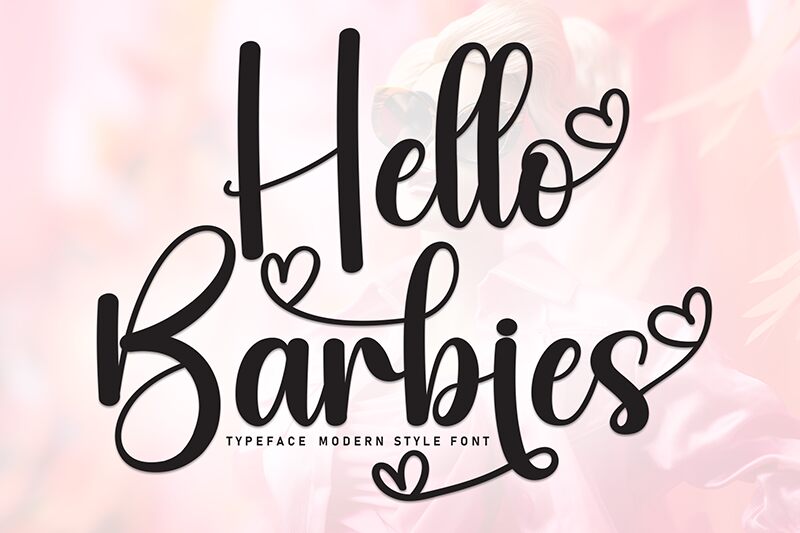
Hello Barbies
Hello Barbies font is a free handwritten font designed by Scratchones. This casual and stylish script explores the theme of childish handwriting, but with ultimately very legible letters that can be used for both formal and less formal applications. All letters in this alphabet present smooth rounded curves for a friendly tone.
Use Hello Barbies on kids’ merchandise, kids’ books, logo design, restaurant menus, labels, product packaging, postcards, invitations or other purposes. If you’re looking to create social media content with stylish typography involved such as Instagram or Pinterest posts then this font can do that too.